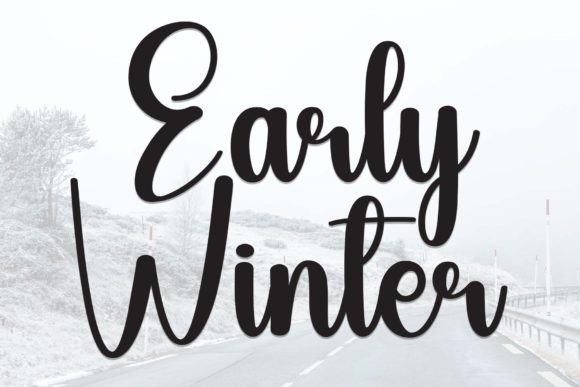
Behold Early Winter, the enchanting script font that exudes a captivating aura of warmth and intimacy, inviting you to delve into a realm of creative expressions. Inspired by the serene beauty of the early winter season, this font captures the essence of handwritten elegance with its meticulously crafted characters. Each letter whispers tales of love, joy, and heartfelt connections, promising to add a touch of magic to your digital creations.
Unleash your imagination and embrace the versatility of Early Winter, a font family that effortlessly adapts to a symphony of design possibilities. Its delicate strokes and graceful curves lend themselves seamlessly to wedding invitations, greeting cards, logos, branding projects, and any endeavor that calls for a touch of personal charm.
Picture your words taking on a new life, imbued with the allure of Early Winter's timeless beauty. Envision your wedding invitations adorned with flowing script, carrying the promise of love and commitment. Enchant your friends and family with heartfelt greetings penned in this elegant font. Allow your brand to radiate warmth and authenticity as Early Winter weaves its magic into your logo and branding materials.
Step into a world where elegance meets versatility, where heartfelt emotions are expressed with artistic flair. Early Winter is more than just a font; it's an invitation to embark on a creative journey where your ideas bloom into visual masterpieces. Discover the limitless possibilities that await you with this enchanting script font.